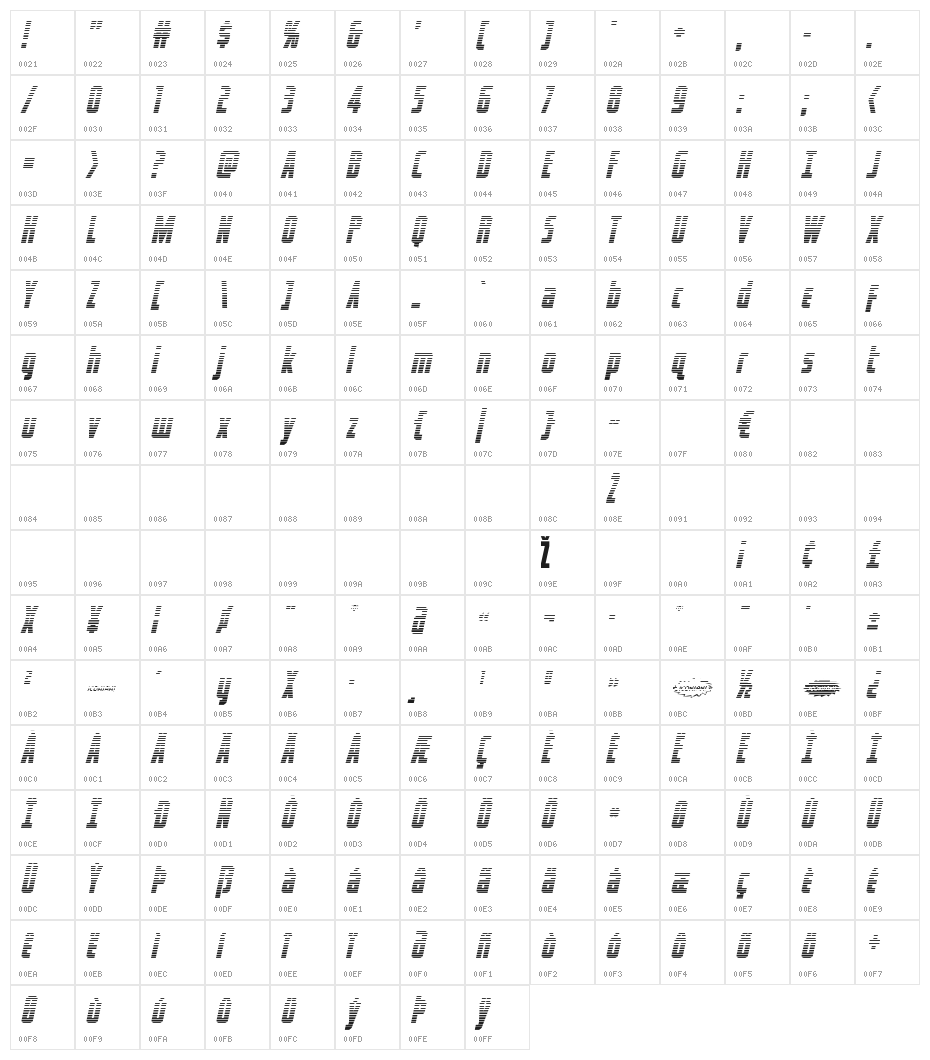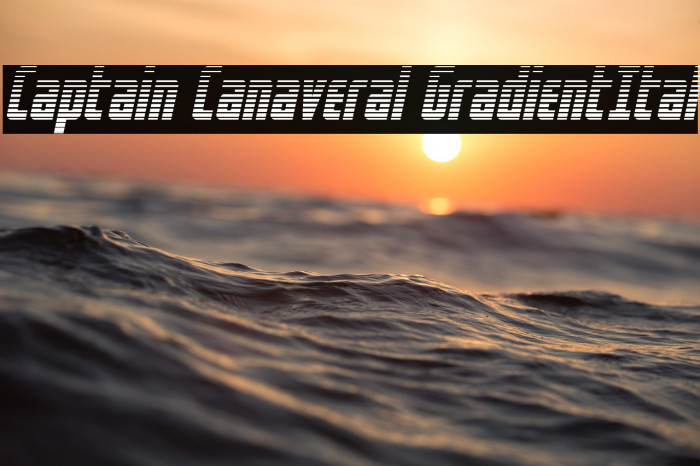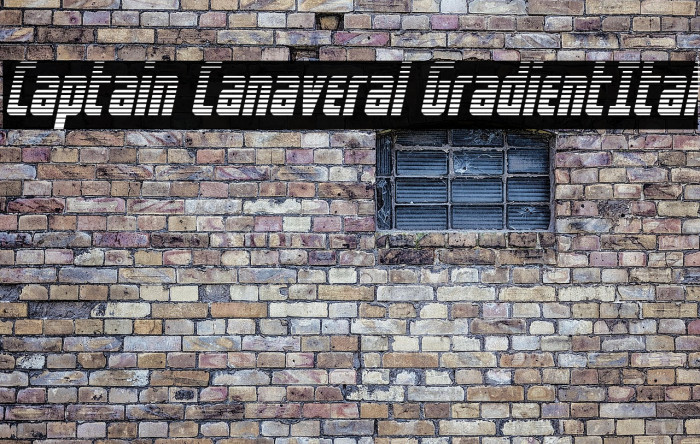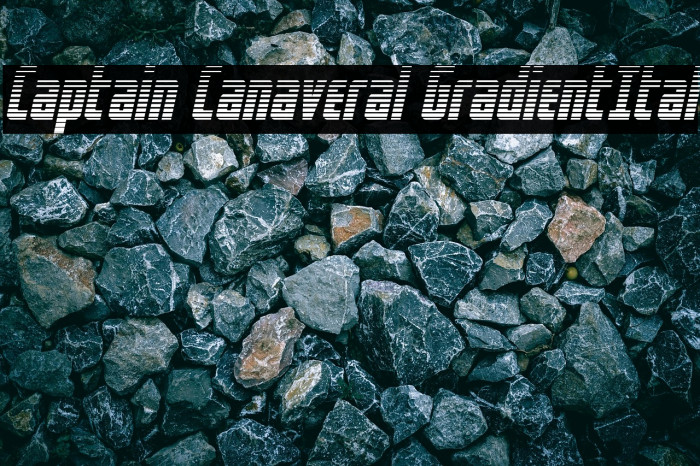
Captain Canaveral GradientItal Font
Captain Canaveral GradientItal Description
This font features a bold, futuristic design with a distinctive gradient effect created by horizontal lines that vary in thickness. The characters are italicized, giving a sense of motion and speed, reminiscent of digital or technological themes. The uppercase and lowercase letters maintain a consistent style, with sharp angles and a geometric structure. The numerals and special characters are equally stylized, ensuring uniformity across all glyphs. This font is ideal for projects that require a modern, edgy look, such as technology branding, sports team logos, or sci-fi themed designs.
| Proposed Projects | Ideal for technology branding, sports logos, sci-fi themes, and digital media. |